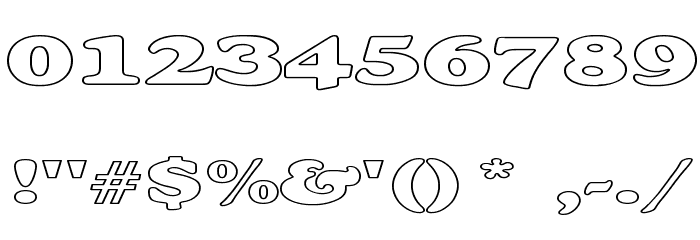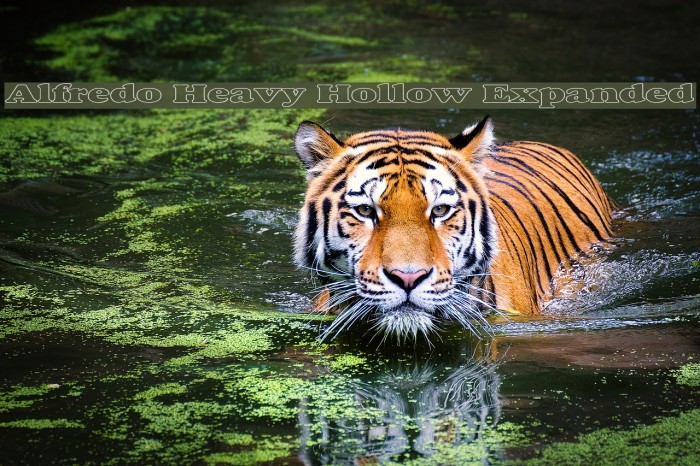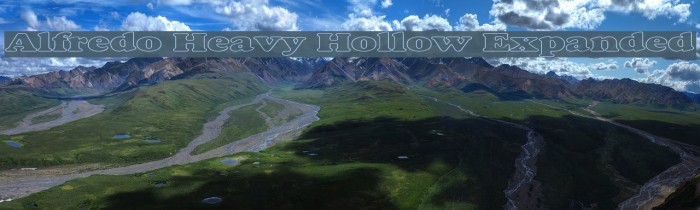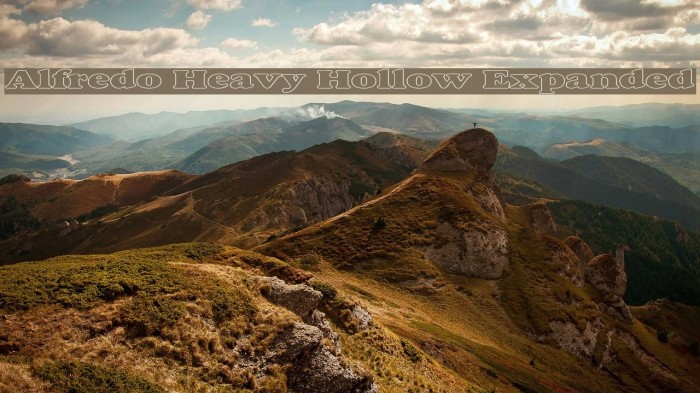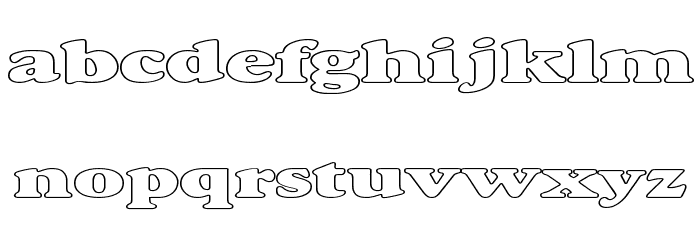
Alfredo Heavy Hollow Expanded Font
Alfredo Heavy Hollow Expanded Description
This font features a bold, hollow design with an expanded width, giving it a distinctive and eye-catching appearance. The uppercase and lowercase letters are consistent in style, with a strong emphasis on geometric shapes and clean lines. The numerals and special characters maintain the same hollow effect, ensuring uniformity across all glyphs. The font's expanded width and heavy weight make it suitable for creating impactful headlines and titles. Its hollow design adds a unique touch, making it stand out in various design contexts.
A bold, hollow, expanded font with geometric shapes and clean lines from Comic fonts.
- Proposed Projects: Ideal for posters, logos, branding, and any project requiring a bold, standout typeface.